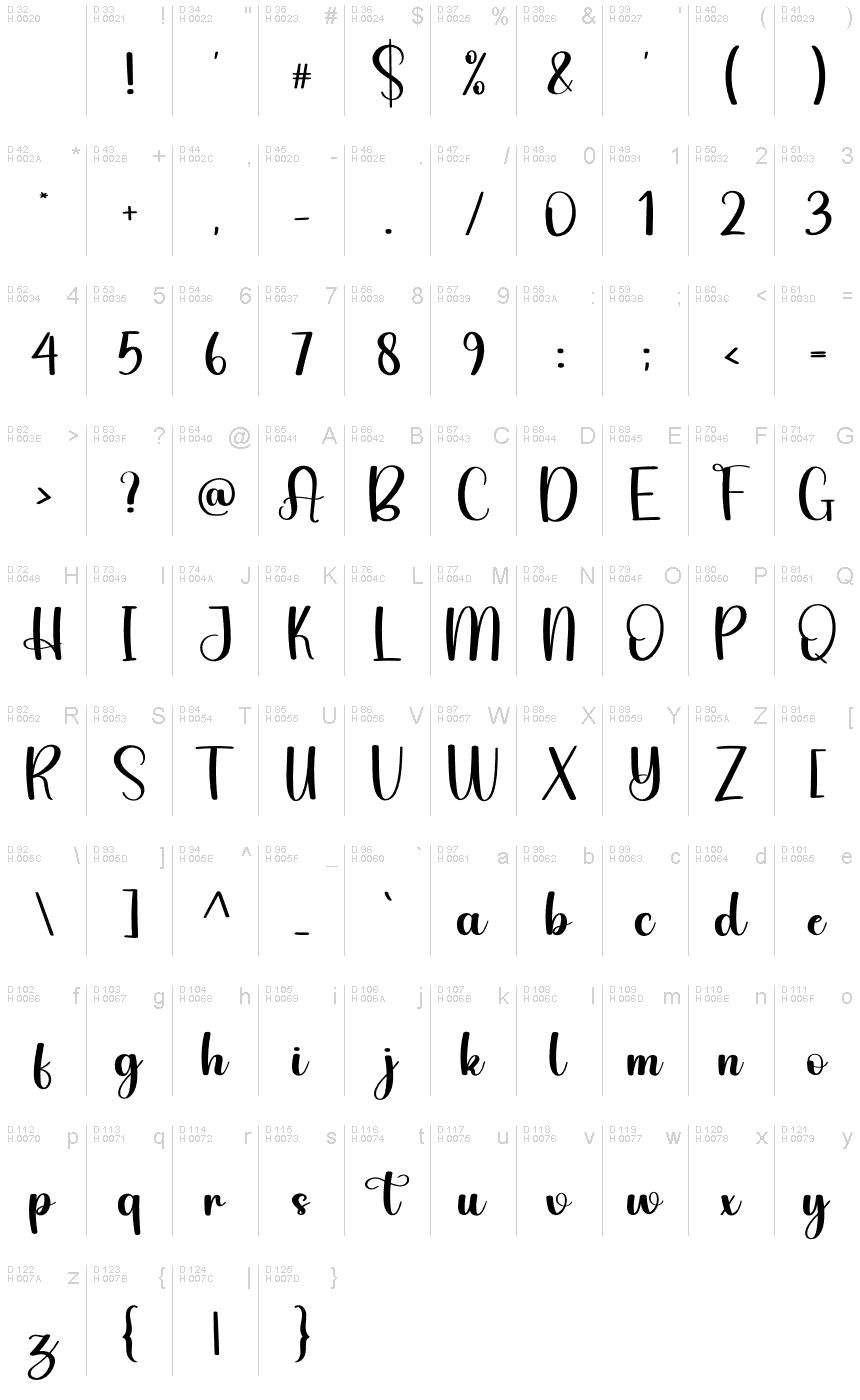
Hunting
Hunting, designed by Harlek Studio, is a lovely handwritten font that brings a touch of charm to any project.
With its soft curves and delicate strokes, this font is perfect for wedding invitations, love letters, and romantic greeting cards. Its versatility also makes it suitable for children's book covers, whimsical logos, and sweet bakery menus. Whether you're creating a heartfelt message or adding a playful element to your design, Hunting will capture the essence of love and innocence with its delightful handwritten style.